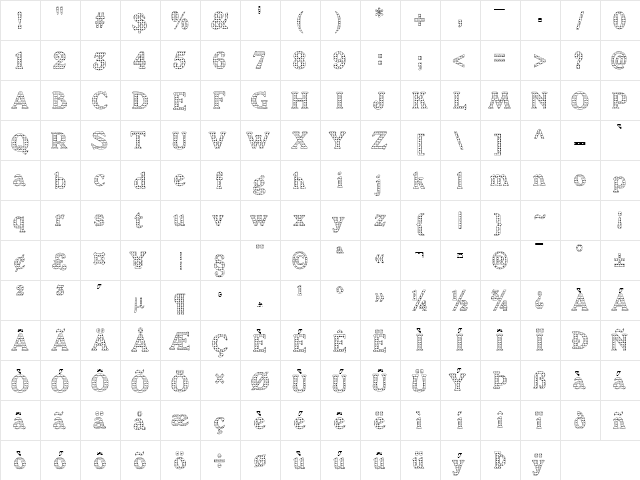
WendonLattice Becker Normal
Design Context for WendonLattice Becker Typeface
WendonLattice Becker is a composed and adaptable typeface that performs quietly and consistently across a wide range of design contexts.